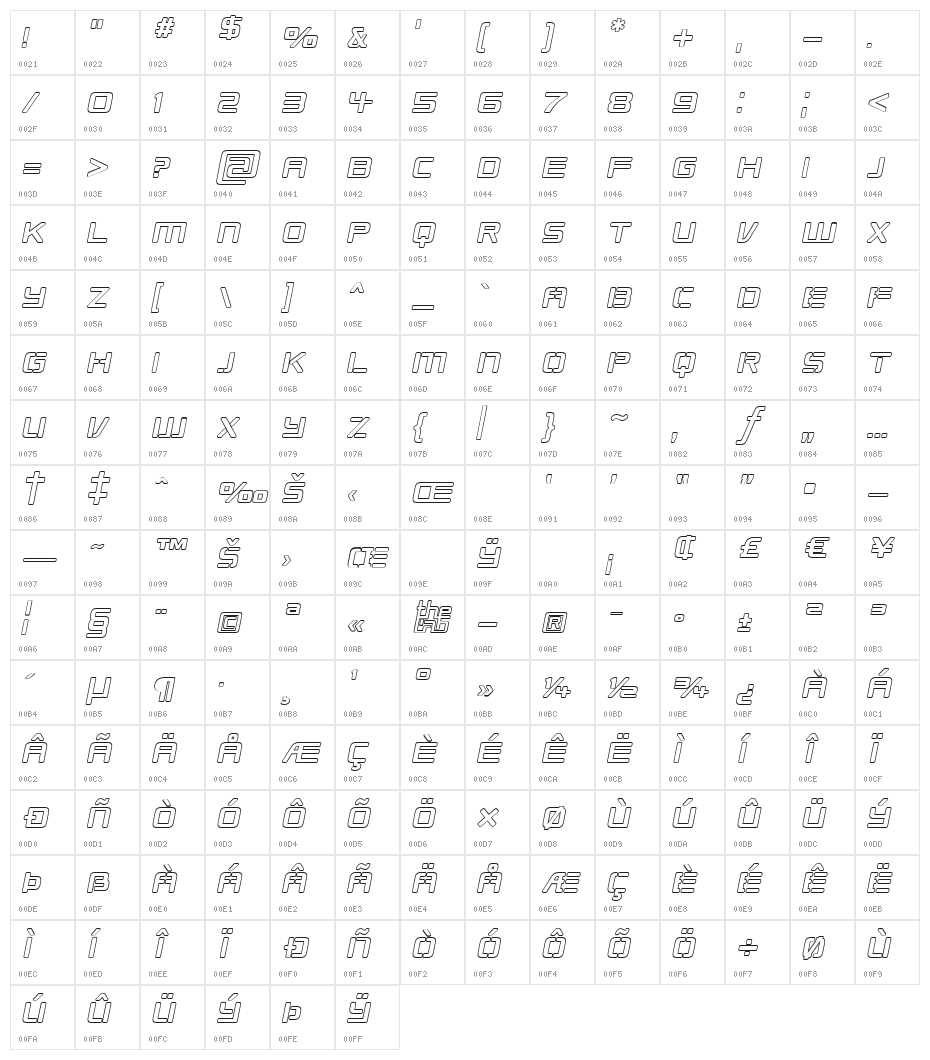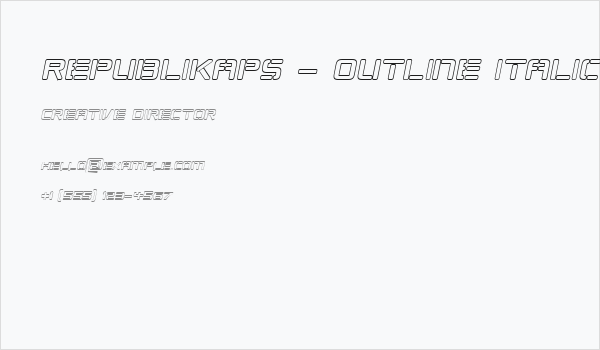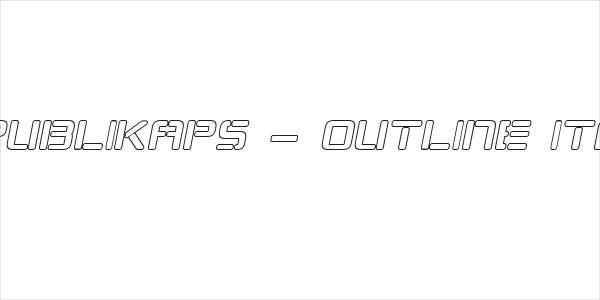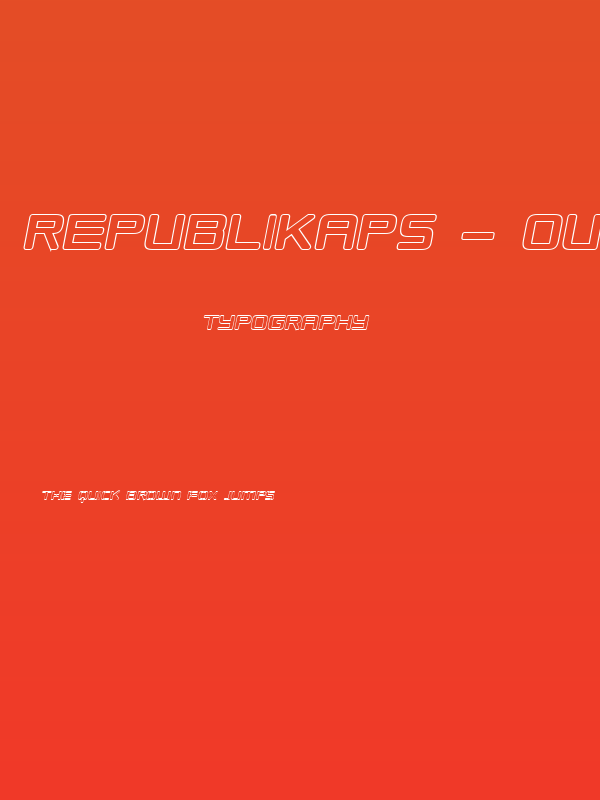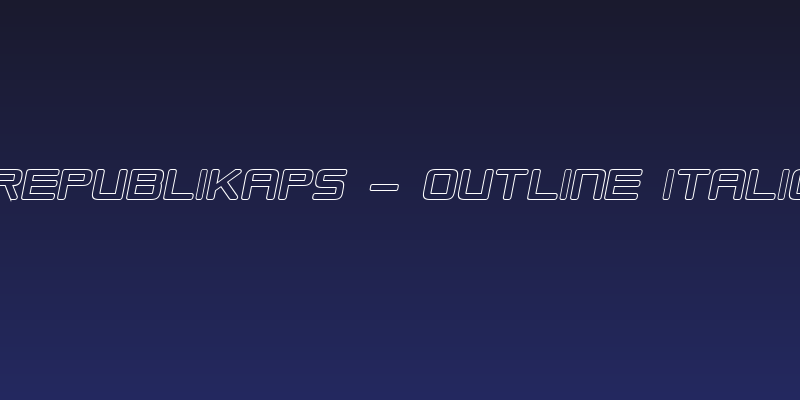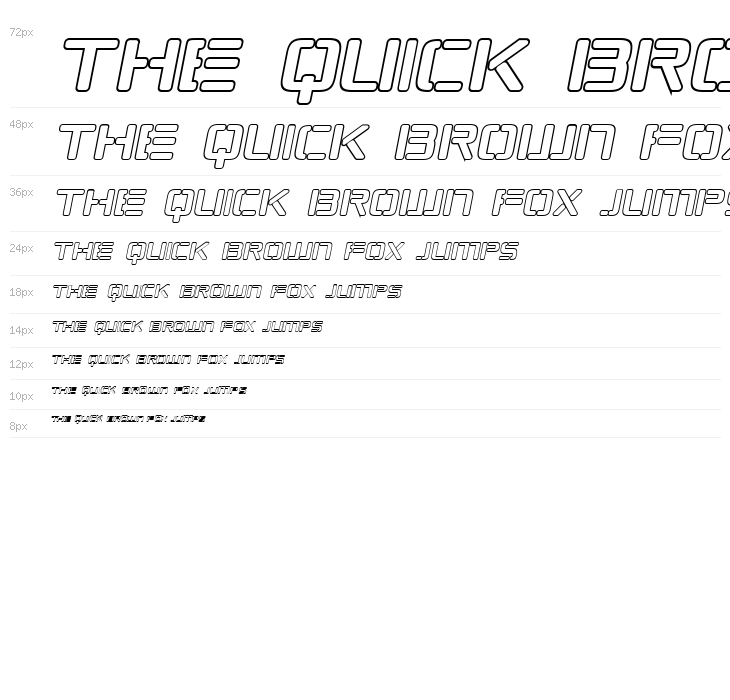
Republikaps - Outline Italic Font
Republikaps - Outline Italic Description
This font features a modern, outlined design with a distinct italic slant, giving it a dynamic and futuristic appearance. The characters are constructed with clean, geometric lines that form an open, airy structure, enhancing readability while maintaining a stylish edge. The uppercase and lowercase letters are consistent in style, with a uniform stroke width that emphasizes its contemporary aesthetic. The numerals and special characters follow the same design principles, ensuring a cohesive look across all glyphs. This font's outlined nature makes it ideal for overlaying on images or backgrounds, where it can stand out without overwhelming the visual content.